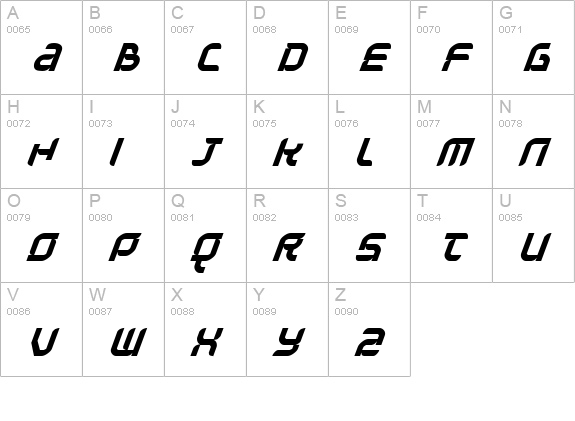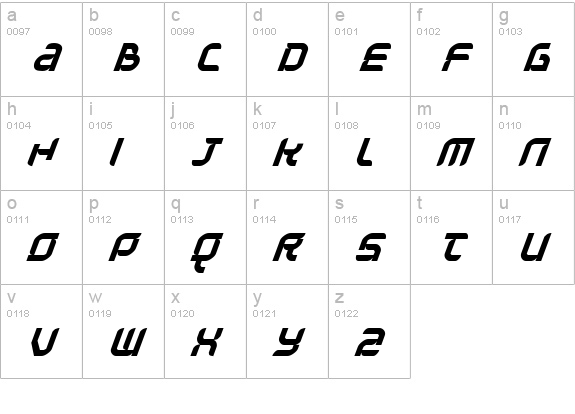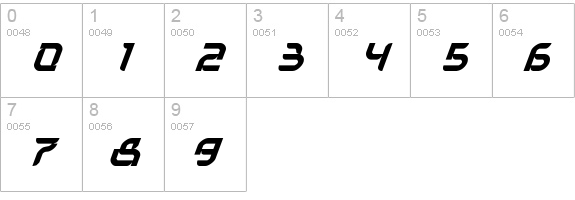
Question of Time font is a unique and stylish typeface that is perfect for adding a touch of sophistication to any design project. With its elegant curves and graceful letterforms, this font is sure to catch the eye and make a statement. What sets Question of Time font apart is not only its stunning aesthetic appeal, but also the fact that it is available to download for free. Yes, you read that right. This incredible font can be yours without having to spend a single penny. Thanks to FontsMarket.com, you can freely access and download Question of Time font, allowing you to unleash your creativity without any limitations. Whether you're designing a logo, creating a website, or working on a branding project, Question of Time font has got you covered. Its versatility makes it suitable for a wide range of applications, from elegant invitations and wedding stationery to eye-catching advertisements and captivating headlines. The clean and legible letterforms of Question of Time font ensure readability, while the unique and intricate details of each character add a sense of sophistication and intrigue. This font truly stands out from the crowd, making it a perfect choice for those who want to make a lasting impression. Don't miss out on the opportunity to enhance your designs with the Question of Time font. Visit FontsMarket.com today to freely download this remarkable typeface and start creating stunning visuals that will leave a lasting impact.